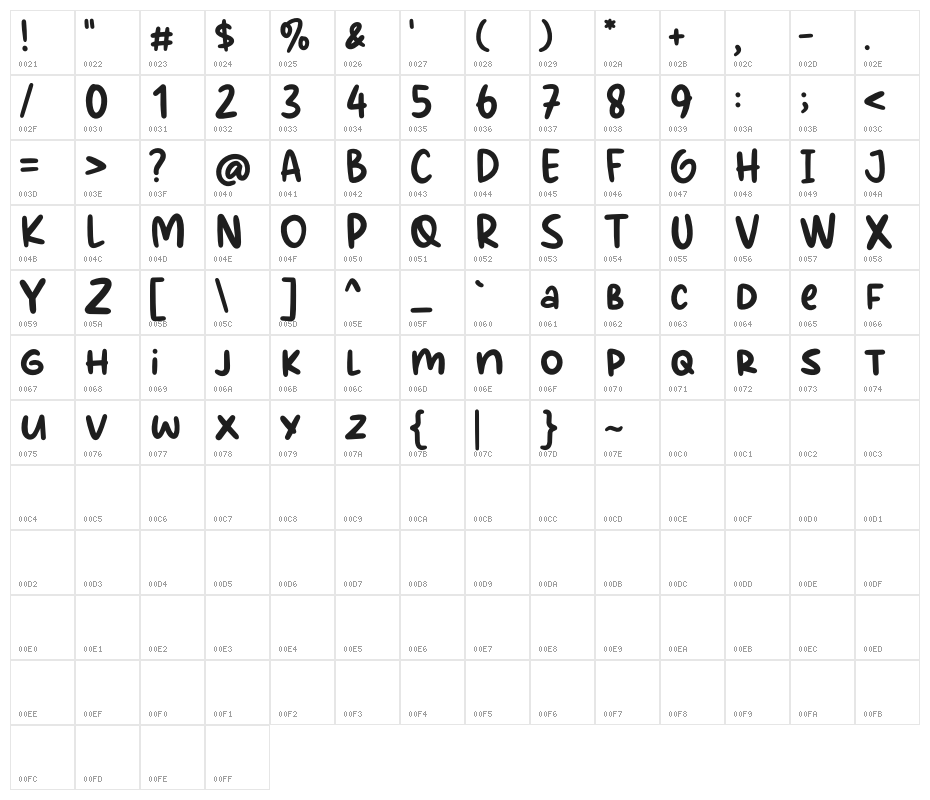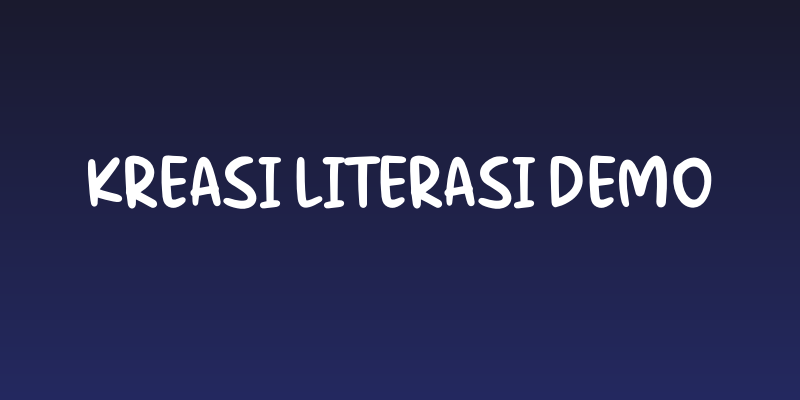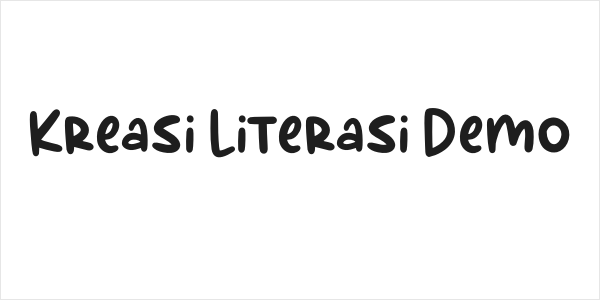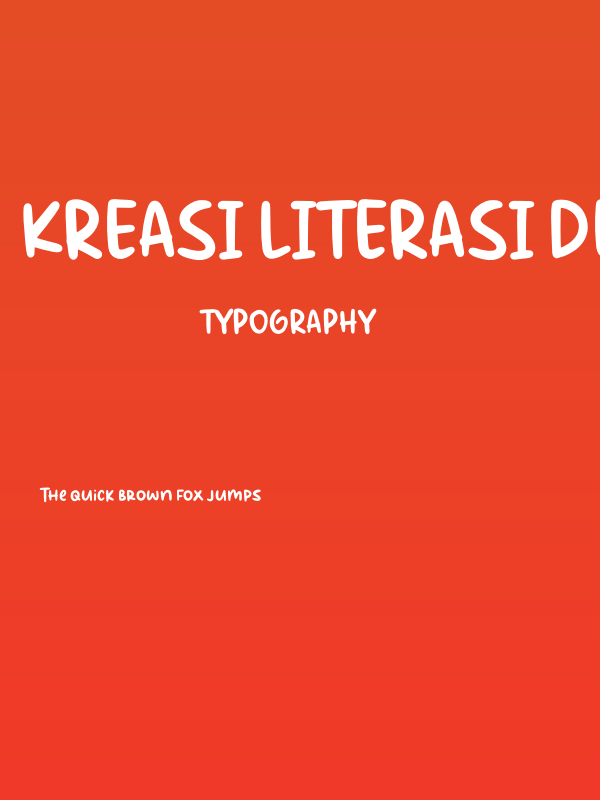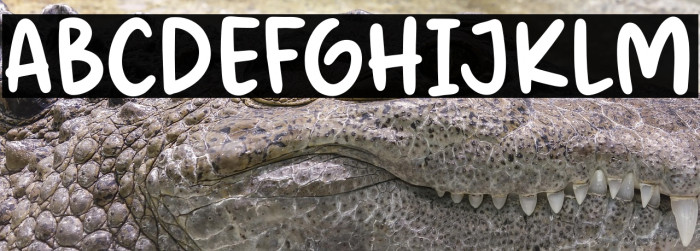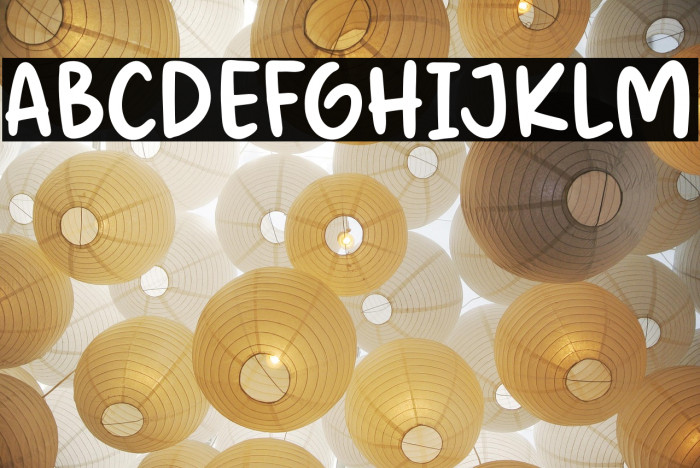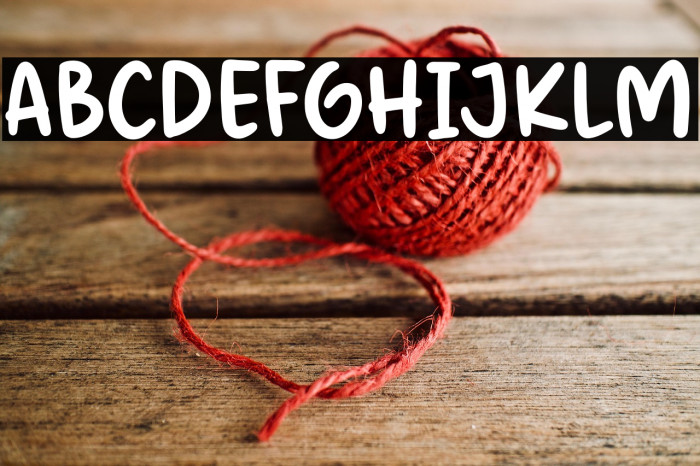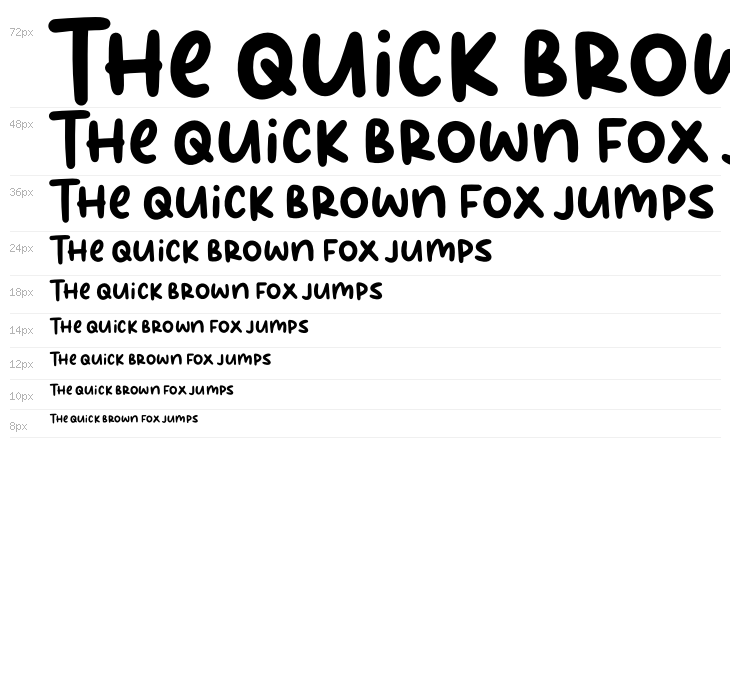
Kreasi Literasi Demo Font
Kreasi Literasi Demo Description
This playful and bold font features a handwritten style with rounded edges and a casual, friendly appearance. The letters are slightly irregular, giving it a whimsical and approachable feel. The uppercase and lowercase characters maintain a consistent style, with a noticeable thickness that adds to its boldness. The numbers and special characters are equally playful, matching the overall aesthetic. This font's design is perfect for projects that require a fun and informal touch, making it ideal for creative and lighthearted themes.
| Proposed Projects | Ideal for children's books, greeting cards, playful branding, and social media graphics. |